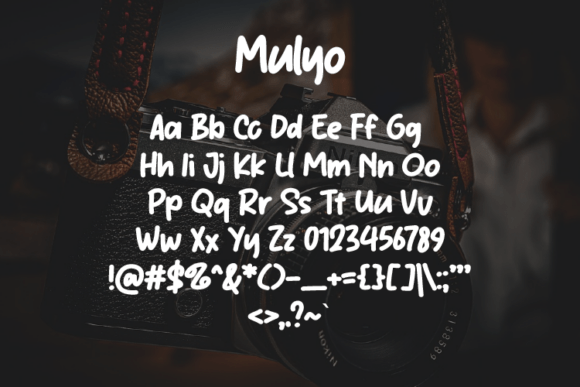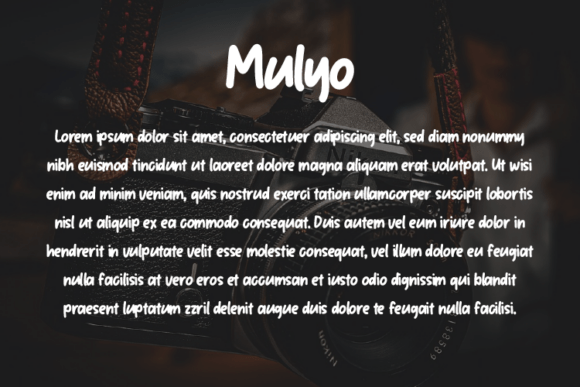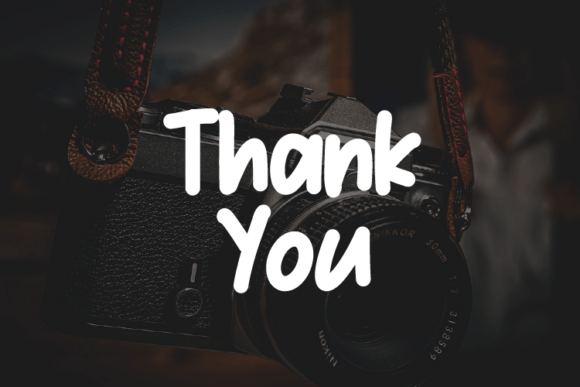
Introduction to Mulyo Font
Have you ever found yourself staring at a blank page, trying to bring a creative project to life, but struggling to find the perfect font to set the tone? This is where Mulyo Font comes in – a modern and elegant typeface designed to elevate your design resource and make your work stand out.
Key Features of Mulyo Font
- Unique, stylish design makes it perfect for adding a touch of elegance to any creative project.
Honest Review: Mulyo Font
What works well: ✨ The Mulyo Font features a clean and modern design, making it perfect for a wide range of applications. It’s also available for free download, which is a huge plus for designers on a budget. I also appreciate the transparent background, which gives me the flexibility to customize my designs as needed.
What doesn’t work well: ⚠️ While the Mulyo Font is a great asset, it’s not without its limitations. The font family is relatively small, which may not be ideal for complex typography-heavy projects. Additionally, the font’s versatility is somewhat limited, making it better suited for simple designs.
Overall impression: I’m impressed with the Mulyo Font’s potential to elevate my designs. While it may not be a one-size-fits-all solution, it’s a great addition to any designer’s toolkit. If you’re looking for a high-quality, free font to add some flair to your creative project, the Mulyo Font is definitely worth checking out.
- Pros: clean design, modern look, free download, transparent background
- Cons: limited font family, limited versatility
Mulyo Font is ideal for designing logos, business cards, brochures, and social media graphics. Its transparent background feature makes it perfect for creating overlays and text effects.
How it compares to Mulyo Font: Great Vibes Font has a more delicate and refined look compared to Mulyo Font, making it ideal for projects that require a softer touch.
How it compares to Mulyo Font: Pacifico Font has a more modern and edgy look compared to Mulyo Font, making it ideal for projects that require a bold and statement-making look.